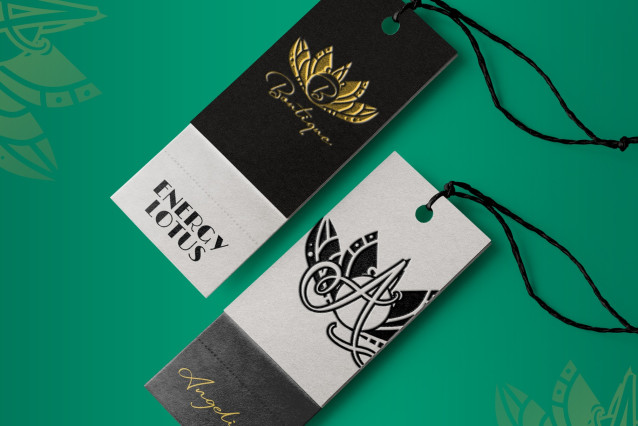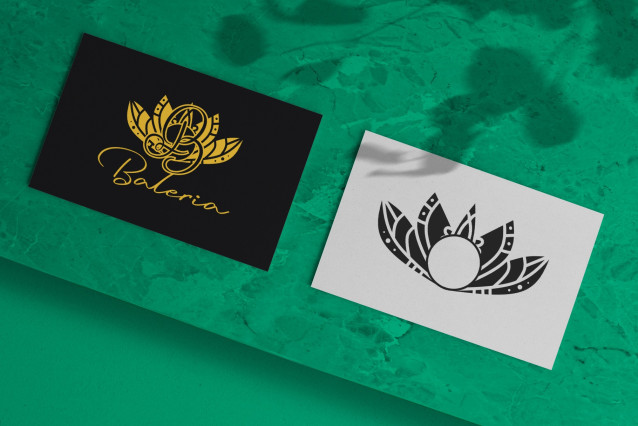
Energy Lotus Mandala Monogram Font
Energy Lotus Mandala Monogram is a lively and beautifully crafted font that combines the sacred symbolism of lotus flowers with energetic mandala detailing. Perfect for wellness branding, artistic prints, boho designs, and special event stationery, this font radiates harmony, vitality, and elegance in every letter.